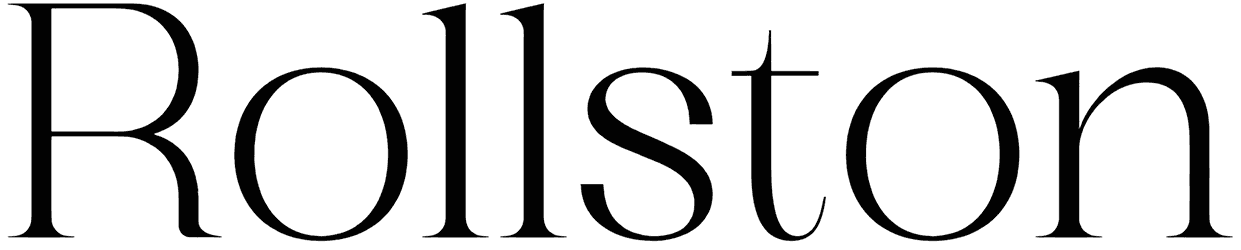
Rollston Font
Rollston is like the well-dressed statesman of the typography world, which can inspire a sense of style with its timeless appearance. This elegant font has good staying power and can be used on official occasions.
But Rollston is not only designed to convey formal feelings but can bring a sense of warmth and familiarity to more casual settings such as blogs and personal websites. This font is versatile enough to create a complete design on posters, banners, and packaging without relying on numbers.